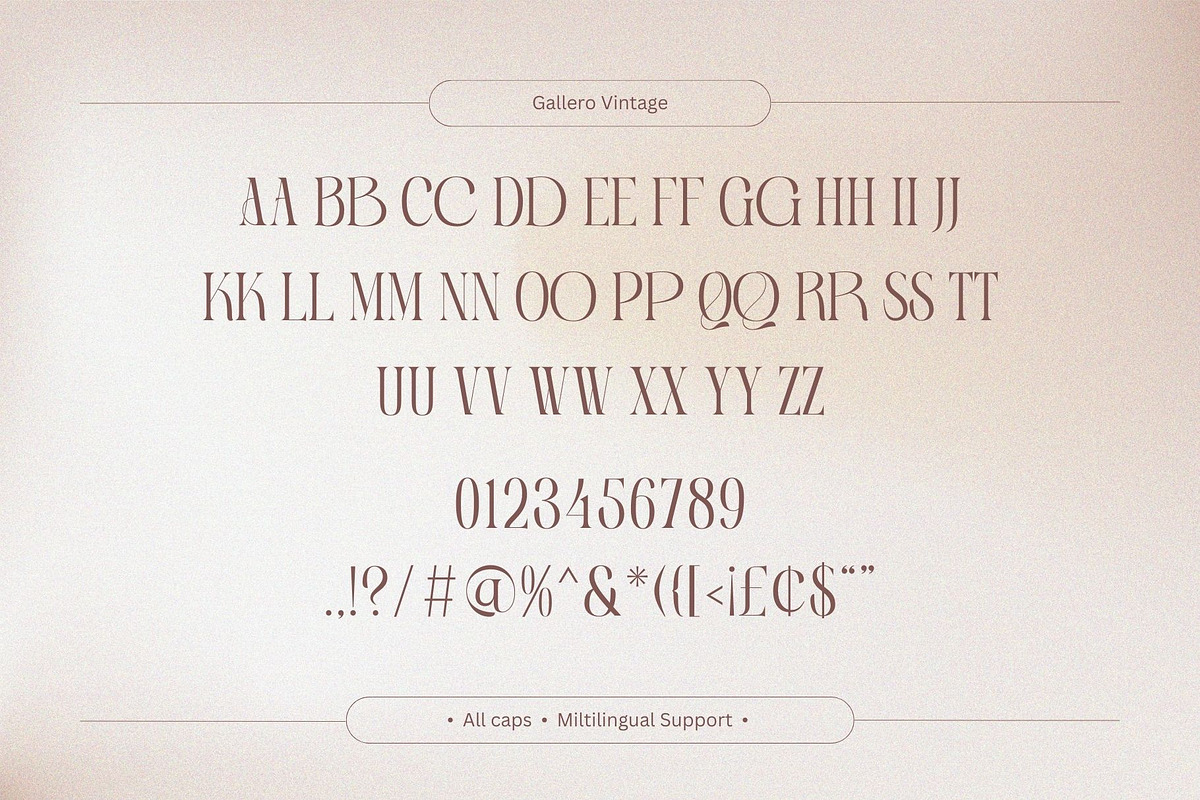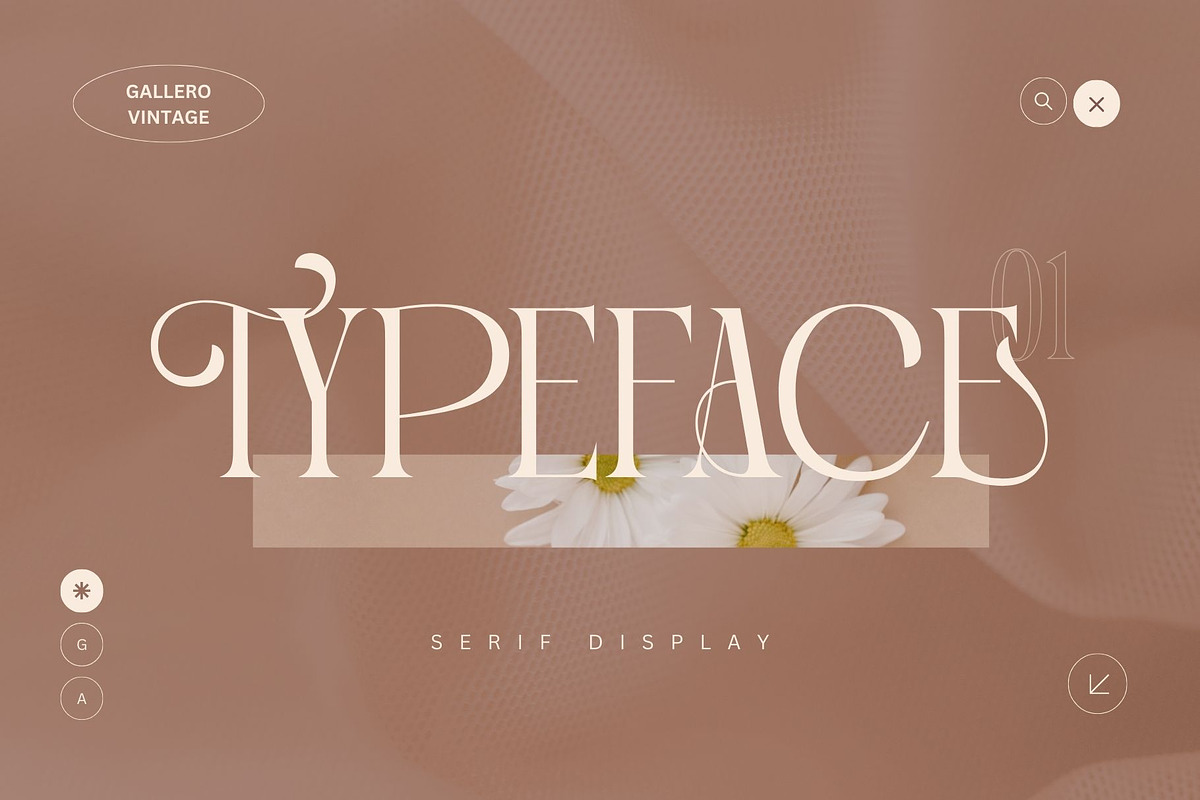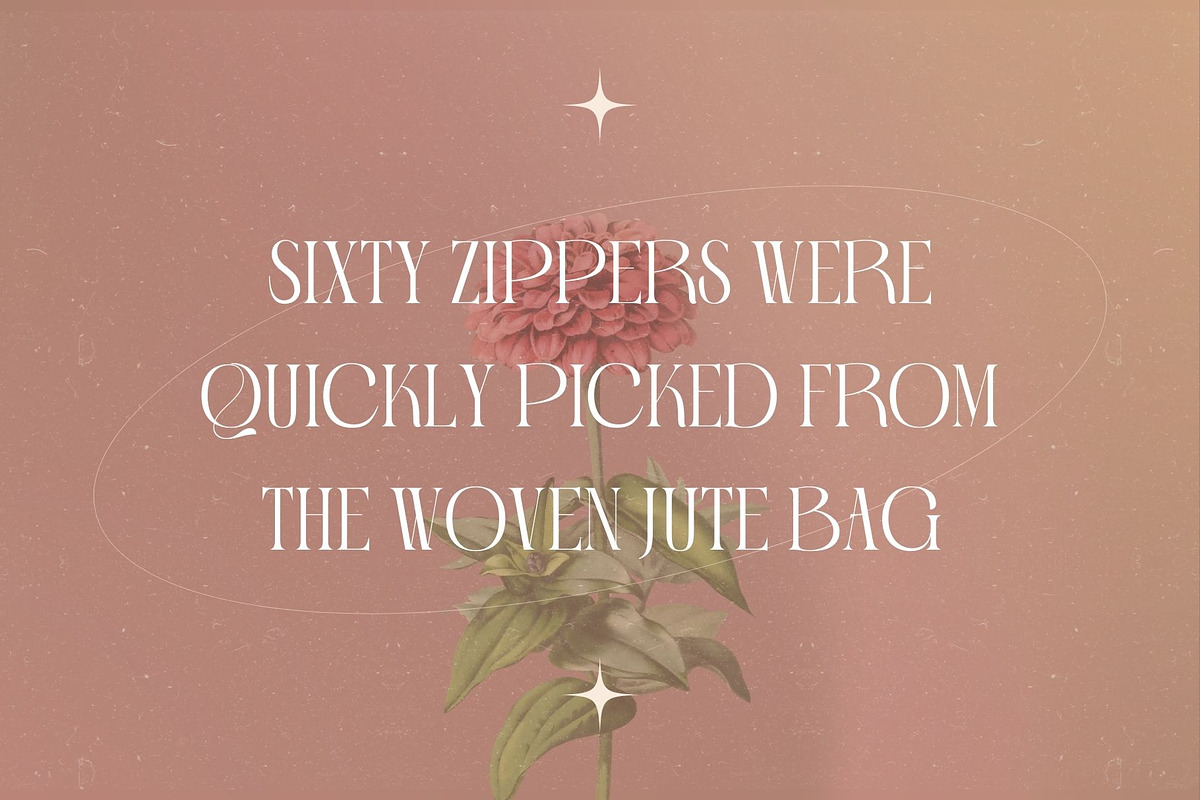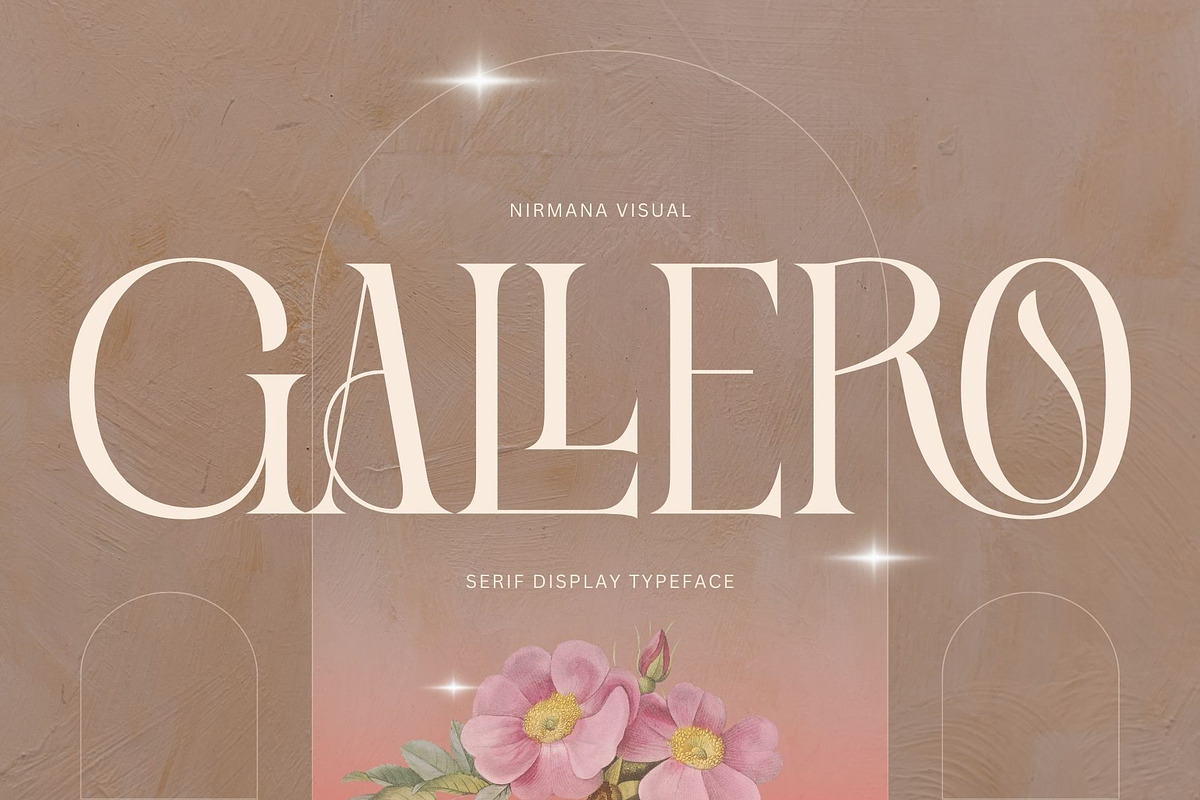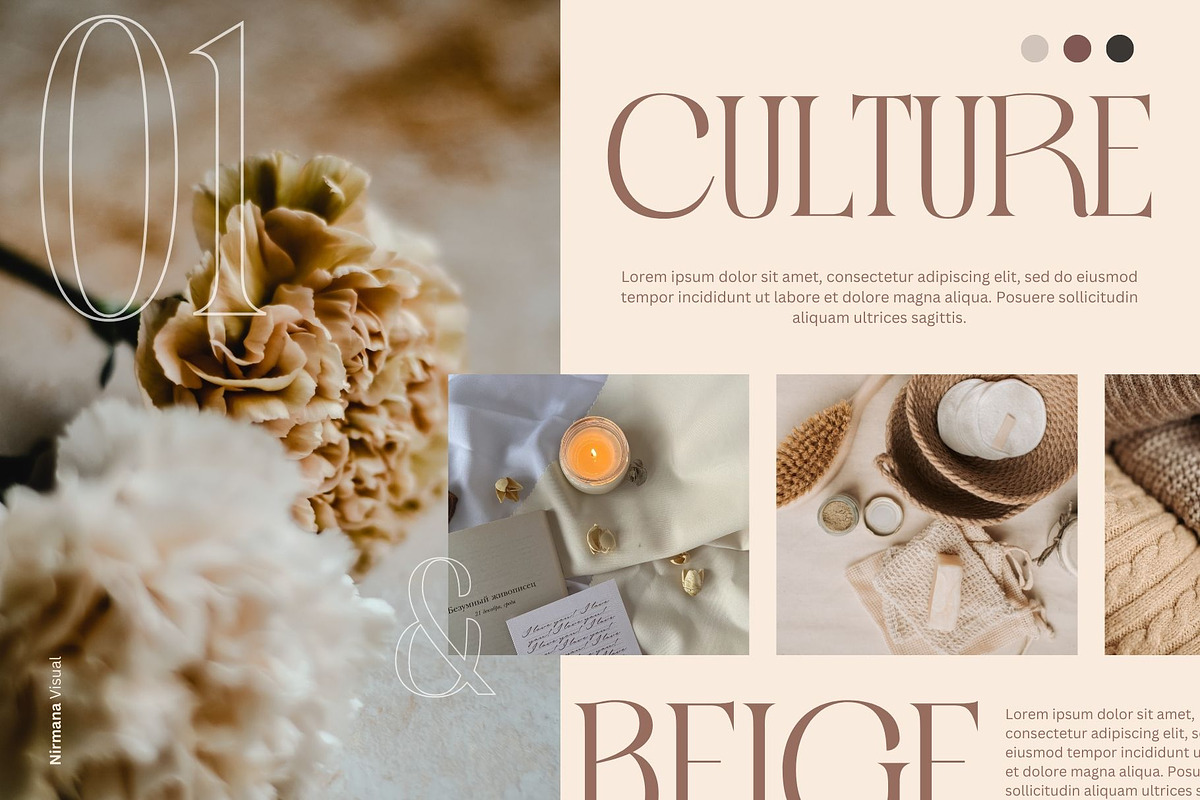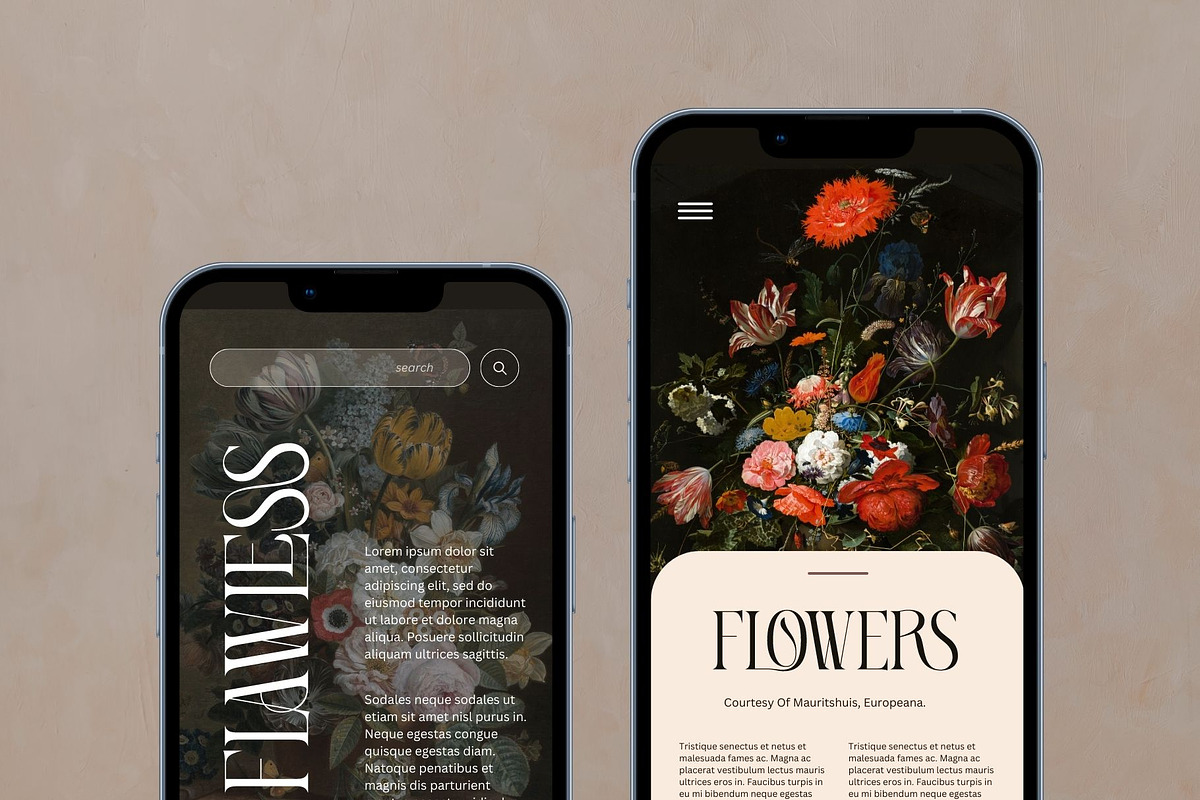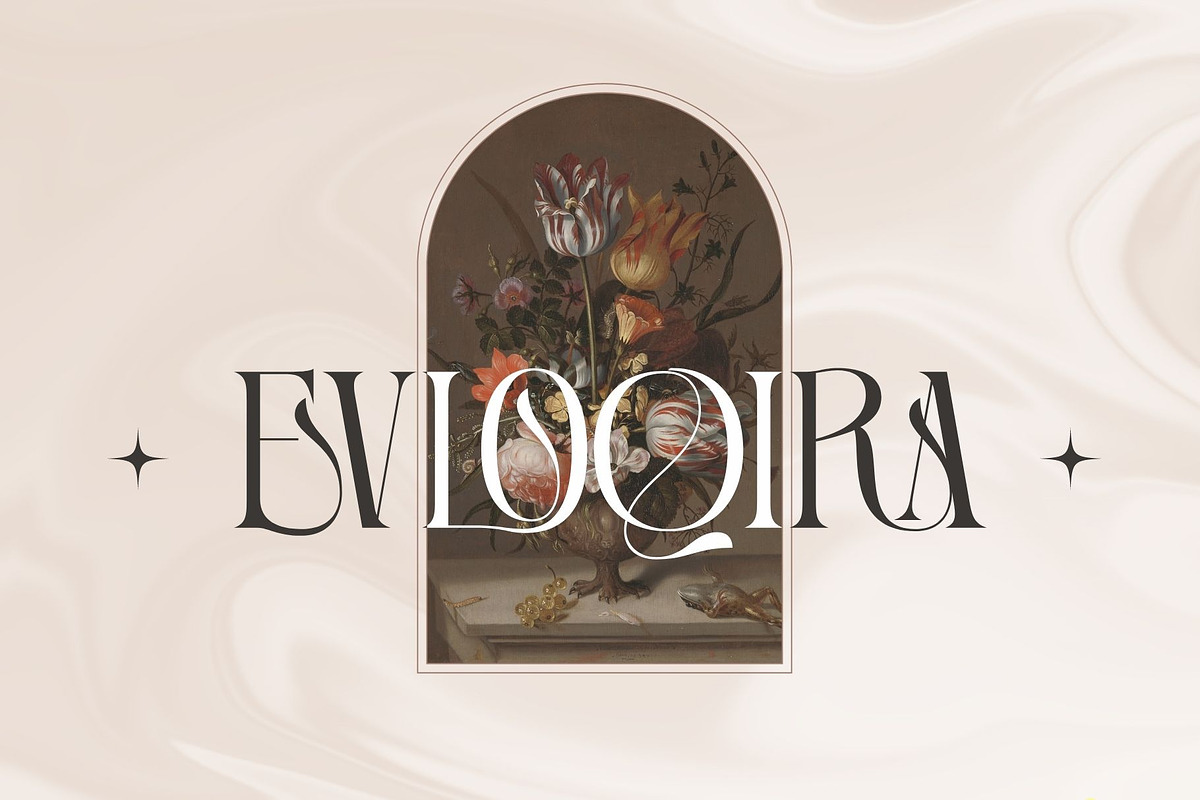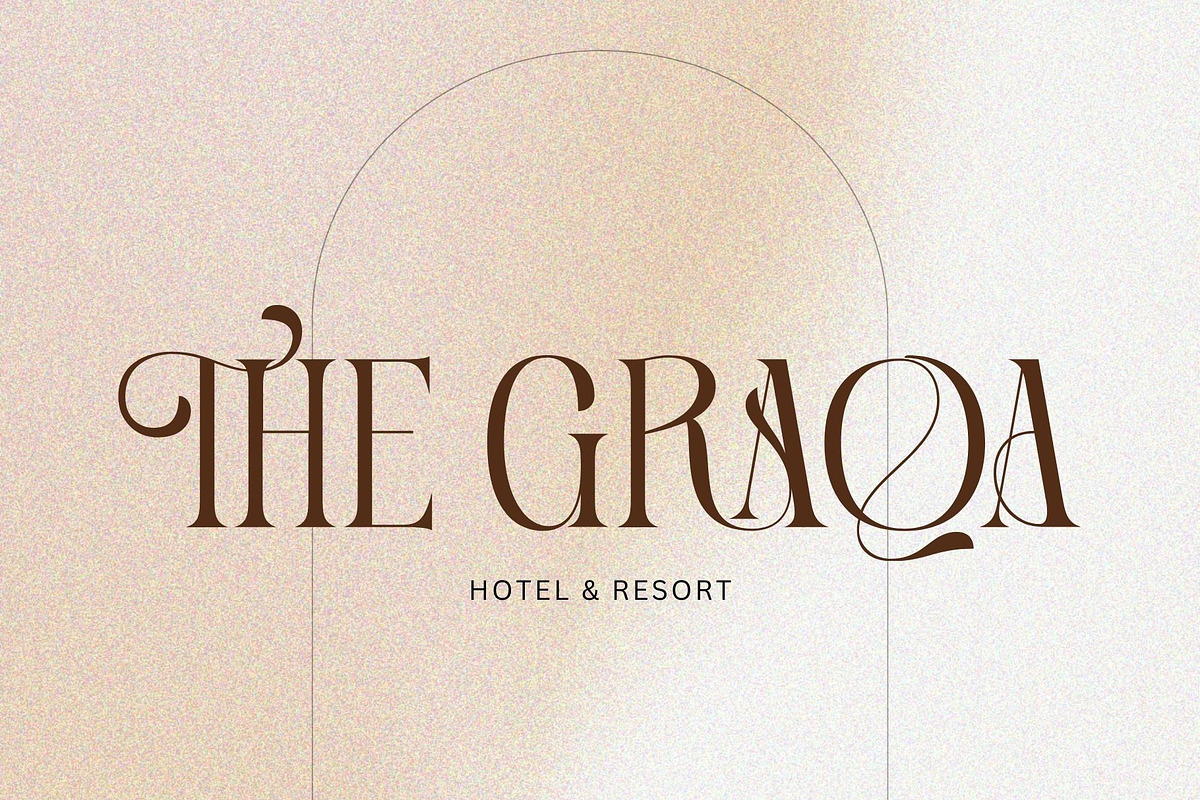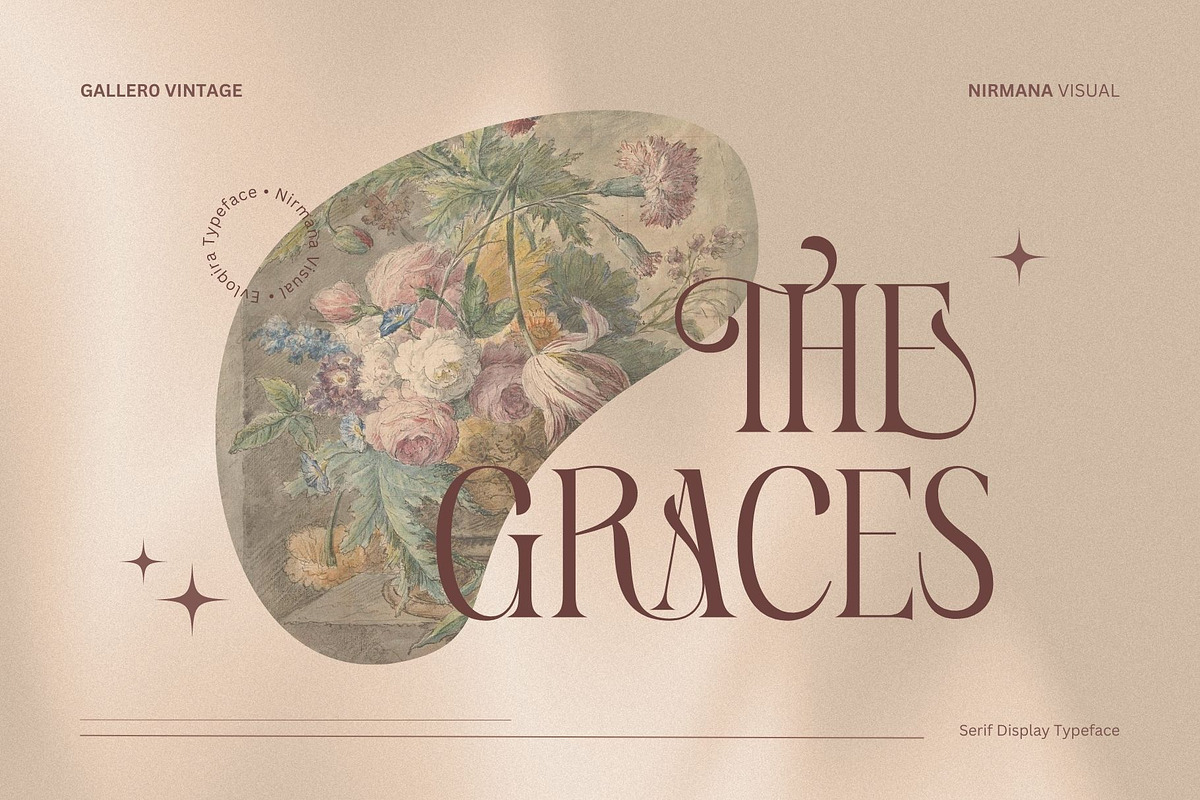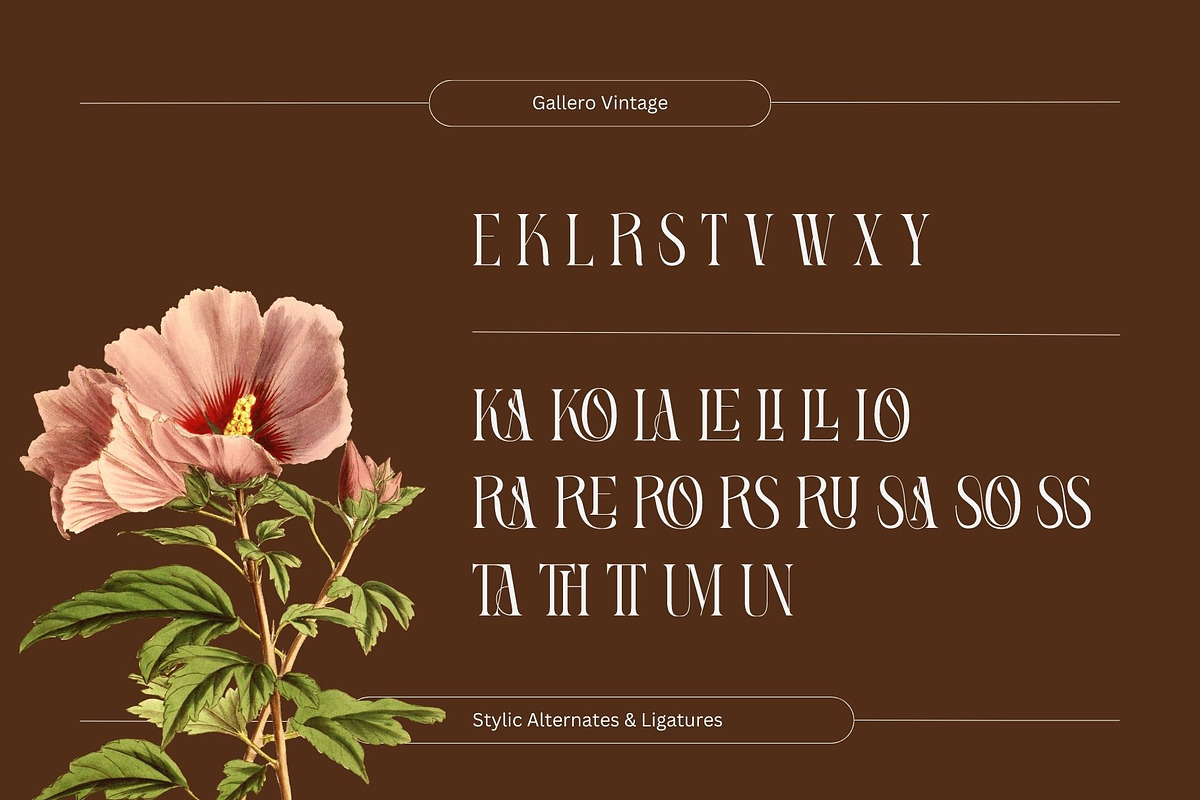
Gallero Vintage - Serif Display
Gallero Vintage , contemporary of serif font, inspired by Art Nouveau era.
Fashion Wacks offers beautiful typographic harmony for a diversity of design projects, including logos & branding, social media posts, advertisements & product designs.